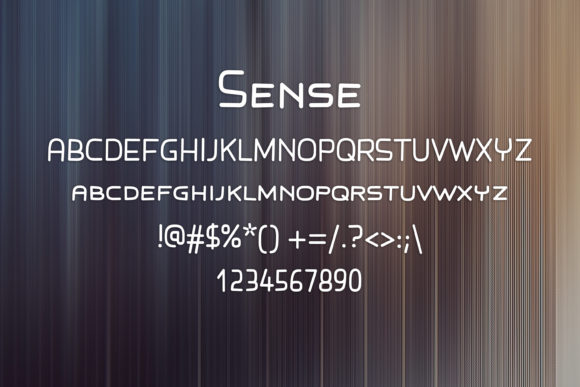
Introduction to Sense Font
Sense is a gorgeously looking display font that will turn any design project into a true standout.
Key Features of Sense Font
Why Choose Sense Font?
Sense Font offers exceptional quality and versatility, making it a valuable addition to your design toolkit. Whether you’re creating for personal projects or commercial use, Sense Font delivers professional results.